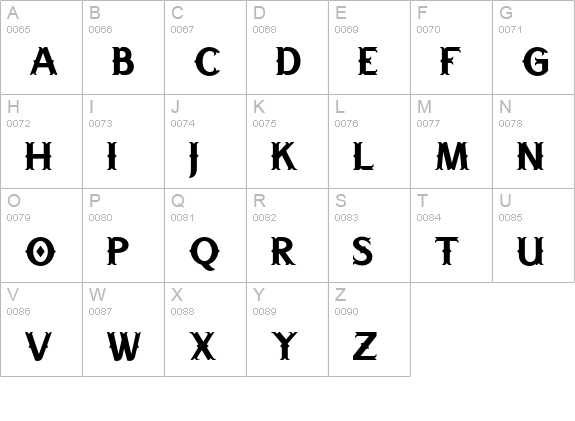
LAKESTER REGULAR LAYER 1 is the standard, neutral variant in the LAKESTER typeface family \xE2\x80\x94 well suited to general body text, paragraphs, and standard typographic work.
Introducing LAKESTER REGULAR LAYER 1 font, a versatile and modern typeface designed to elevate your design projects to the next level. This font features a sleek and sophisticated look that is perfect for a wide range of applications, from branding to editorial design. The LAKESTER REGULAR LAYER 1 font is meticulously crafted with attention to detail, ensuring clean lines and smooth curves for a professional finish. Its bold yet elegant design makes it stand out while maintaining readability, making it ideal for both print and digital projects. What sets LAKESTER REGULAR LAYER 1 font apart is its unique layering effect, giving your text depth and dimension. Whether you're looking to create eye-catching headlines or stylish logos, this font offers endless possibilities for creative expression. Best of all, LAKESTER REGULAR LAYER 1 font is available for free download at FontsMarket.com. This means you can easily access this high-quality font without any cost, making it a valuable addition to your font collection. Don't miss out on the opportunity to enhance your designs with the LAKESTER REGULAR LAYER 1 font today!